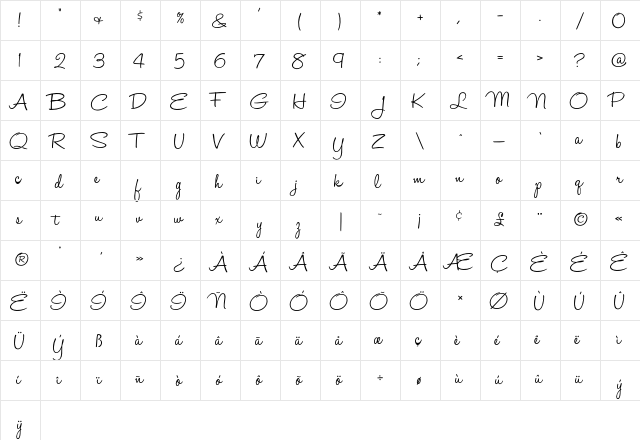
HaloHandletter Regular
Design Context for HaloHandletter Typeface
HaloHandletter flows with the natural rhythm of handwritten lettering, making it ideal for designs that call for warmth and personal expression.
Font Pairing: Combine HaloHandletter with a simple geometric sans for maximum contrast — the tension between flowing curves and clean structure is a classic typographic pairing.
Pro Tip: Pair HaloHandletter with a clean sans-serif for supporting text. The contrast between fluid script and geometric structure creates an elegant typographic hierarchy.